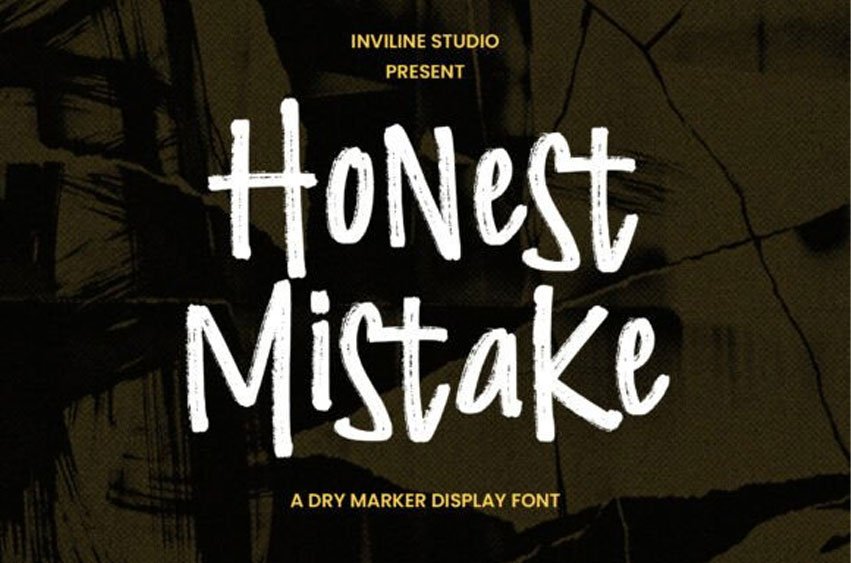
Honest Mistake Font The embodiment of grit and authenticity, Honest Mistake is a dry marker display font that proudly embraces its rough-and-tumble aesthetic. Every stroke of this typeface resonates with an underlying grainy texture, capturing the distinct appeal of a thick marker teetering on the brink of ink-depletion.
With its deliberate textural inconsistencies, unbalanced boundaries, and a rhythmic blend of uppercase and lowercase characters, Honest Mistake assigns each word its own visual gravity. It doesn’t masquerade as something polished – it relishes its own rawness and that’s where its charm lies. Honest Mistake was crafted with the eclectic city-life and creative buzz in mind – think street-fashion attire, skate deck designs, artful beverage labels, edgy punk gig posters, album covers, and urban gastronomy branding.
With OpenType alternates and ligatures, this font allows designers the freedom to create compositions that ring with hand-drawn originality. Its multilingual support makes it not just a versatile but also an all-embracing choice for endeavors rooted in the global street art culture.